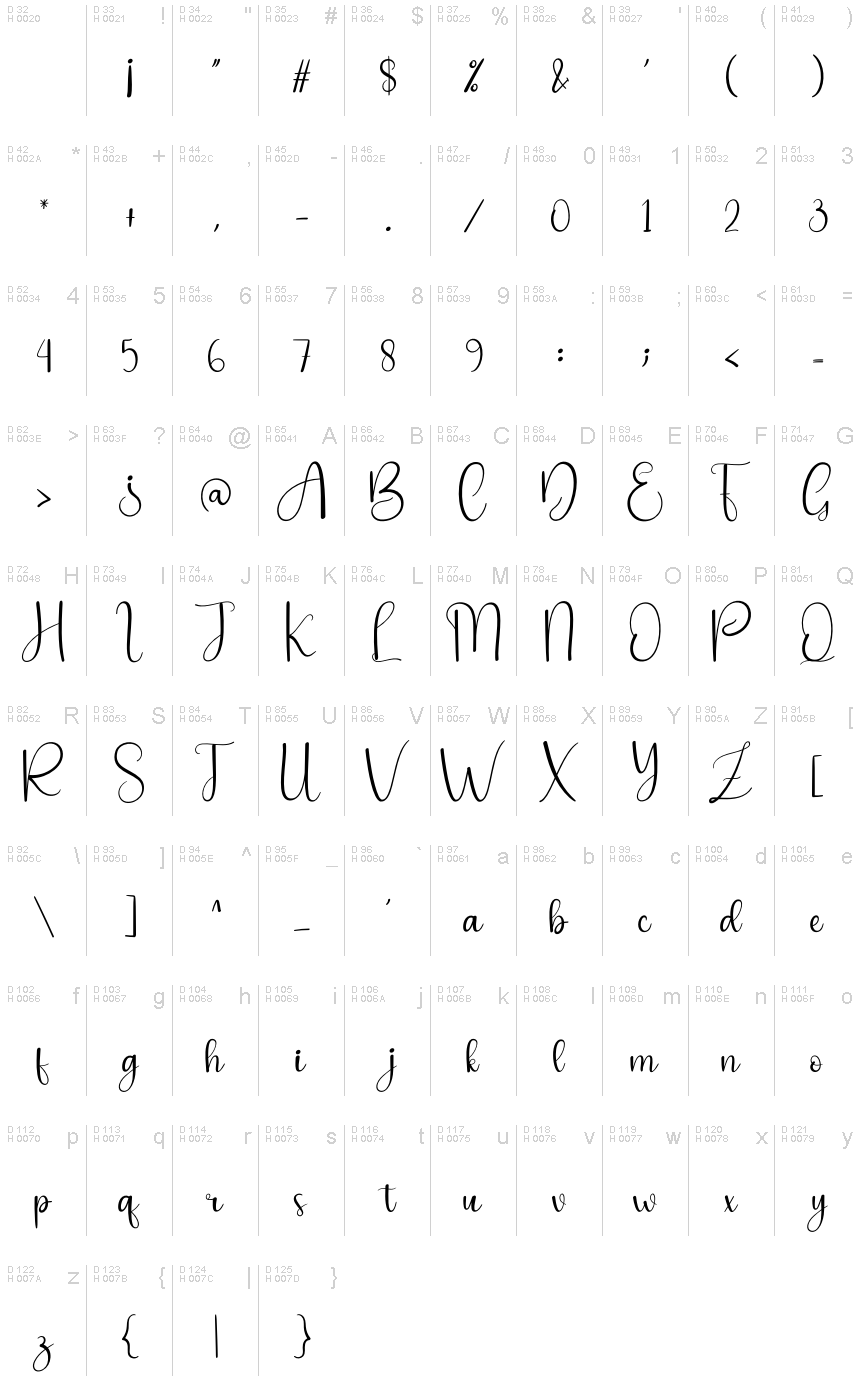
Life Style
Life Style, designed by Scratchones, offers a fresh take on the handwritten font style. Its semi-light weight gives it a delicate touch, while the semi-condensed width ensures readability without sacrificing elegance. The flowing strokes and slightly varied kerning capture the spontaneity of handcrafted writing, making it ideal for designs that require a personal and intimate feel.
The aesthetic appeal of Life Style lies in its balance between casual charm and refined grace. This versatility opens up a world of possibilities for creative projects, from heartfelt invitations to boutique branding or even editorial design. Whether you're looking to add a touch of humanity to your graphics or create standout social media posts, Life Style is poised to elevate your work with its unique blend of casual sophistication.